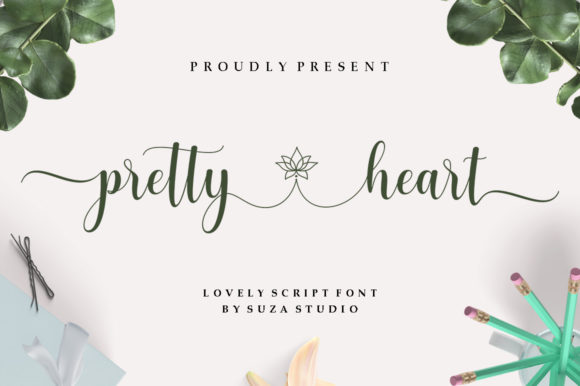
Introducing Pretty Heart Font: Your Gateway to Enchanting Designs
Step into the world of captivating typography with Pretty Heart Font, a modern script font that exudes charm and elegance. Its graceful curves and playful irregularity dance together in perfect harmony, leaving an unforgettable impression on your designs. Crafted by the talented Suza Studio, Pretty Heart is more than just a font; it's an artistic expression that breathes life into your creative vision.
Unleash Your Creativity with Endless Possibilities
With Pretty Heart Font, the possibilities are boundless. Its versatility knows no limits, making it the perfect companion for an array of design projects. Whether you're crafting stunning wedding invitations, expressing gratitude with heartfelt thank-you cards, or sharing your wisdom through captivating quotes, Pretty Heart elevates your words, adding a touch of magic to every creation.
From branding projects that demand attention to stationery that exudes sophistication, Pretty Heart seamlessly adapts to your diverse design needs. Let your imagination soar as you explore new horizons of creativity, knowing that Pretty Heart will effortlessly elevate your designs.
Capture Hearts with Every Stroke
Pretty Heart Font possesses an undeniable allure, captivating hearts with its unique charm. Its flowing lines and organic shapes evoke a sense of romance and femininity, while its irregular baseline adds a touch of whimsy and playfulness. Whether you're designing for a fashion website, creating enchanting logos, or crafting social media posts that stand out, Pretty Heart is your secret weapon to capturing attention and leaving a lasting impression.
Immerse Yourself in a World of Beauty and Grace
With Pretty Heart Font, you'll discover a world where beauty and grace intertwine. Its elegant strokes dance across the page, inviting you to explore the depths of your creativity. Each letter is a work of art, carefully crafted to evoke emotion and add depth to your designs. As you work with Pretty Heart, you'll feel a sense of inspiration and joy, knowing that you're creating something truly special.
Embrace the Pretty Heart Experience
Pretty Heart Font is more than just a font; it's an invitation to embark on a creative journey like no other. Its versatility, charm, and elegance will transform your designs, leaving a lasting impression on all who encounter them. Experience the magic of Pretty Heart Font today and unlock the full potential of your creativity.